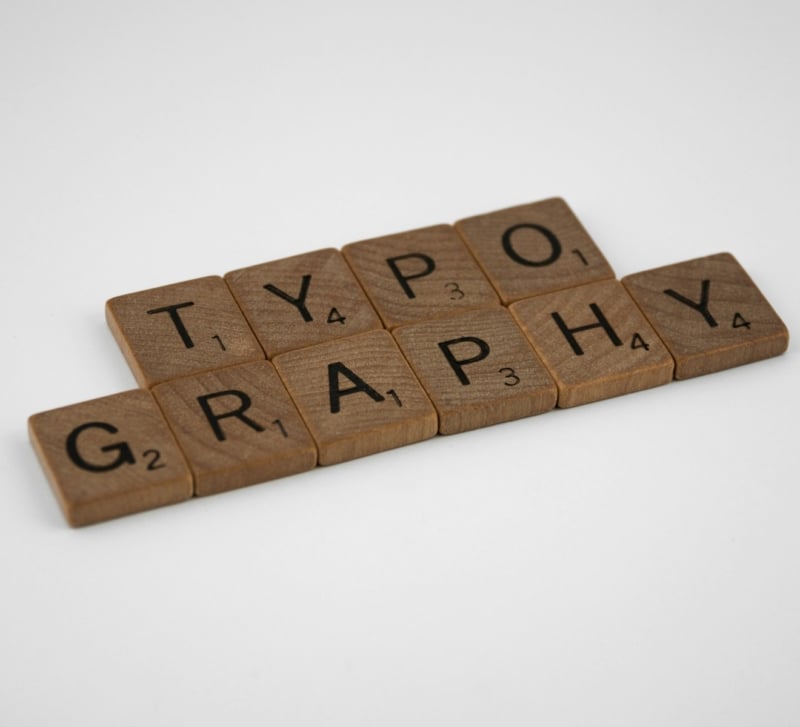
Typography in Presentations: How the Right Font Shapes Audience Perception
Introduction
Typography isn’t just about design—it’s about perception. In a presentation, your choice of fonts can shape how an audience interprets your message. A mismatched or hard-to-read font can instantly undermine credibility, while a thoughtful typeface builds trust and engagement.
Why Fonts Matter in Presentations
Typography works at both a conscious and subconscious level. A clean sans-serif font projects confidence and modernity, while a serif font communicates tradition and authority. Choosing the right font helps:
• Build audience trust
• Guide attention to key points
• Improve readability across screens
• Reinforce brand tone and personality
Psychology of Typography
Fonts evoke emotion. Research shows that people associate:
• Serif fonts → tradition, authority, professionalism
• Sans-serif fonts → clarity, modernity, minimalism
• Display fonts → creativity, uniqueness, boldness
In presentations, fonts act as a visual voice. The wrong choice can create dissonance, but the right one strengthens your narrative.
Common Typography Mistakes in Slides
1. Using too many fonts → creates visual clutter.
2. Poor contrast → light text on light backgrounds weakens readability.
3. Inconsistent hierarchy → when headings, subheadings, and body text don’t follow a structure.
4. Overuse of stylistic effects → shadows, outlines, and excessive italics distract instead of enhance.
Best Practices for Typography in Presentations
• Limit yourself to two fonts maximum (heading + body).For guidance on choosing the right typefaces, check out best presentation fonts that are trusted by professionals for readability and style.
• Ensure fonts are legible from the back of a room (or on smaller virtual screens).
• Use consistent sizing and hierarchy to guide attention.
• Match fonts with your presentation tone—serif for formal, sans-serif for modern, display fonts sparingly.
• Test across devices to avoid readability issues.
Case Example: How Font Choices Shift Perception
Imagine two investor pitch decks:
• One uses decorative fonts with inconsistent sizing → outcome: the message feels amateurish.
• Another uses a clean sans-serif headline with a supporting serif body font → outcome: polished, credible, and professional.
This subtle shift in typography alone changes how the same content is perceived.
The Future of Fonts in Presentations
• Variable fonts will allow flexibility without adding extra file size.
• Minimalist typography will remain dominant in business decks.
• AI-powered presentation design will increasingly optimize font choices automatically.
Conclusion
Typography is more than aesthetics—it’s strategy. The right font shapes perception, guides focus, and reinforces your message. By applying simple rules of hierarchy, contrast, and font pairing, presenters can elevate their slides from ordinary to persuasive.